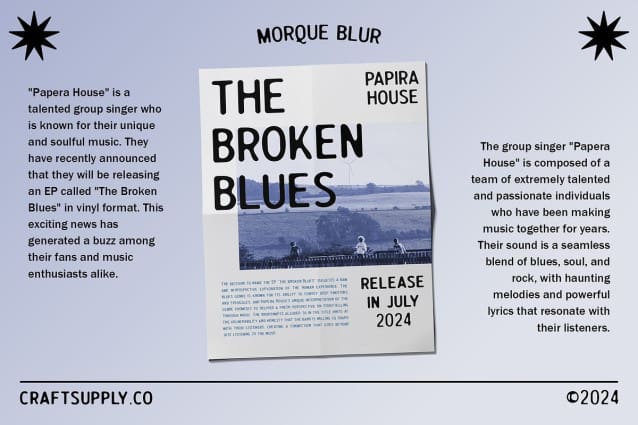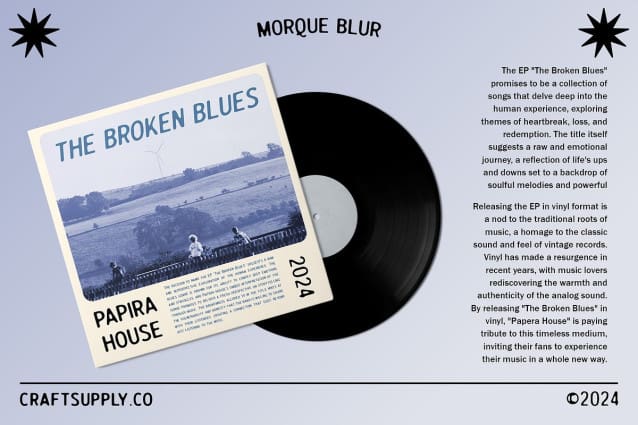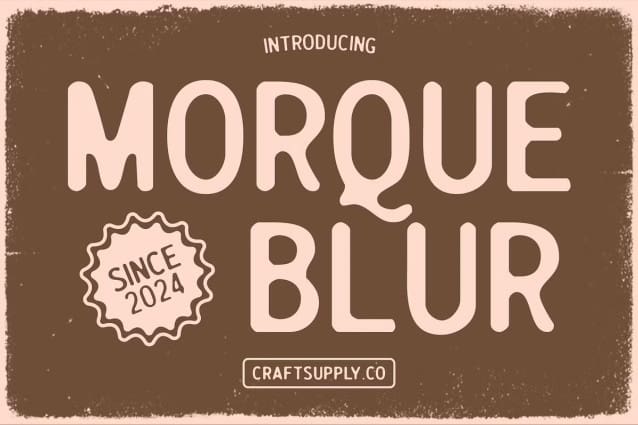
Morque Blur Font
Morque Blur Font is a unique sans serif font that combines a clean, modern aesthetic with a playful blur effect. Perfect for creating eye-catching displays, this font adds a touch of whimsy and creativity to any design project.
With its sans serif design and distinctive blur effect, Morque Blur offers a fresh and playful twist on traditional typography. The blur effect adds a sense of motion and energy, making it ideal for posters, digital media, and other projects that need a dynamic and engaging look.
Whether you’re designing a poster for a modern art exhibition or creating a headline for a trendy magazine, Morque Blur is sure to make an impact. Its unique design and blur effect make it perfect for displays that demand attention and convey a sense of fun.
Despite its playful appearance, Morque Blur is versatile and easy to use. The font works well in both large and small sizes, making it suitable for a variety of applications, from headlines and banners to logos and more. With its blend of modern design and blur vibe, Morque Blur adds a captivating and creative touch to any design.